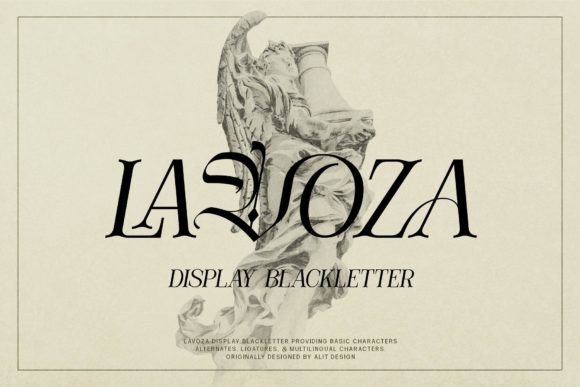
Unveil Lavoza: A Blackletter Font that Resonates with Style and Daring
In the realm of typography, where words take visual form, Lavoza emerges as a captivating blackletter font that leaves an indelible mark on your creative expressions. Its striking features are akin to bold brushstrokes, elegantly dancing across your designs with an air of confidence and sophistication. Prepare to be enthralled as this font captivates your audience, leaving them spellbound by its mesmerizing allure.
Lavoza's versatile nature makes it a perfect companion for an array of projects. Whether you're crafting product packaging that demands attention or seeking to establish a brand identity that exudes boldness, Lavoza stands ready to elevate your vision. Its daring personality lends itself seamlessly to projects where traditional fonts falter, adding a touch of intrigue and sophistication to logos, posters, and even website designs.
As you unleash your creativity with Lavoza, you'll discover a world of possibilities. Its intricate details and graceful curves evoke a sense of nostalgia, harkening back to an era of timeless artistry. Yet, Lavoza is decidedly modern, perfectly in tune with contemporary design trends. This unique blend of old-world charm and contemporary flair ensures that your designs will resonate with audiences of all ages and backgrounds.
Imagine the impact of Lavoza's striking presence on your next project. Picture product packaging that leaps off the shelves, demanding attention with its bold typography. Envision branding materials that exude confidence and leave a lasting impression. With Lavoza as your creative ally, you'll effortlessly create designs that captivate and inspire, leaving an enduring legacy of visual excellence.